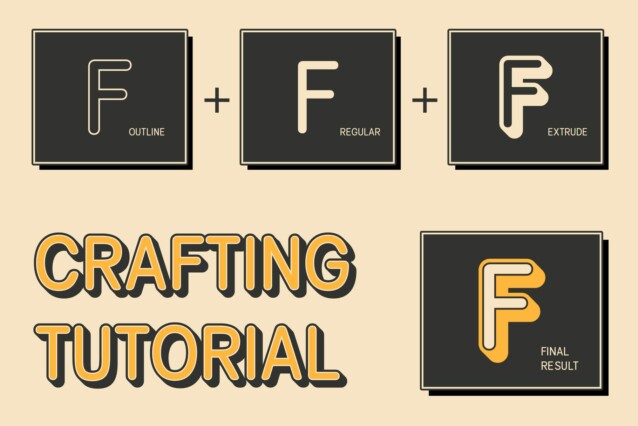
Campeno Rounded 3D Font
Campeno Rounded 3D Font showcases a modern sans-serif style with clean, geometric shapes softened by rounded corners. This thoughtful design approach gives the font a friendly and accessible vibe, making it ideal for brands aiming to communicate approachability and clarity. The rounded elements not only enhance readability but also add a warm, contemporary feel that suits a wide range of design needs.